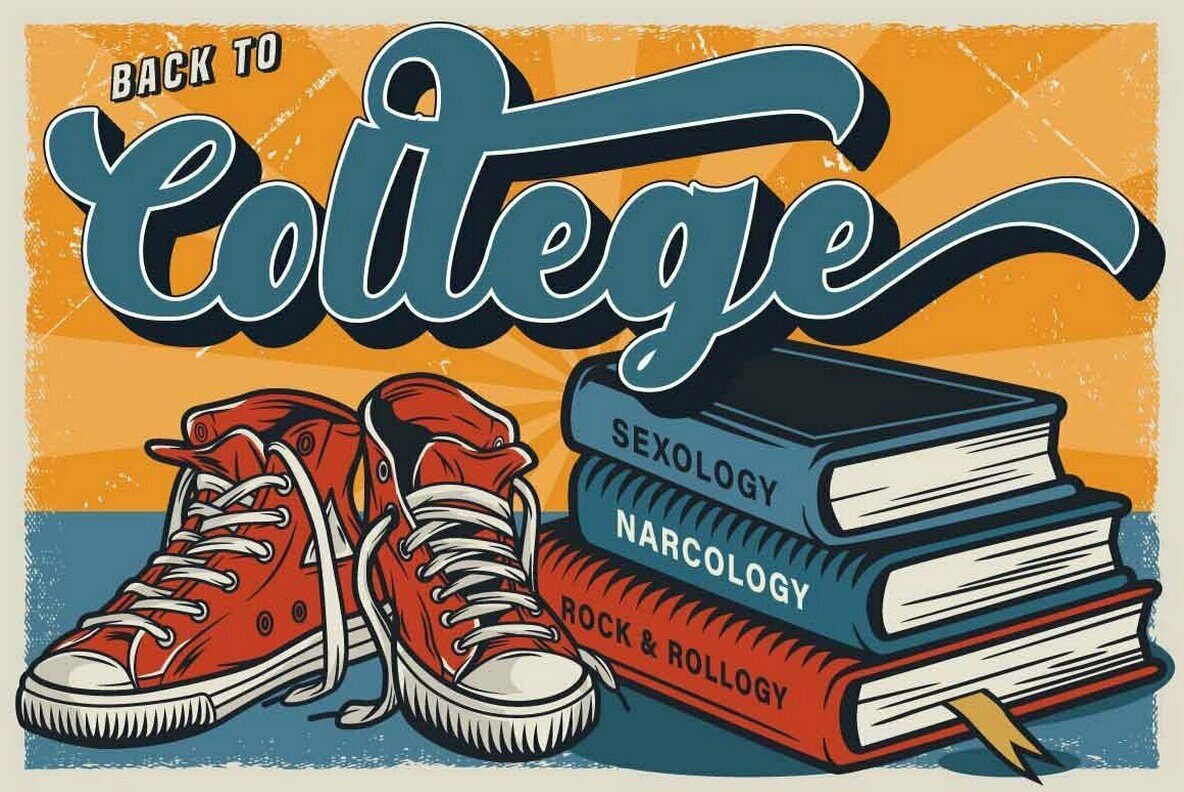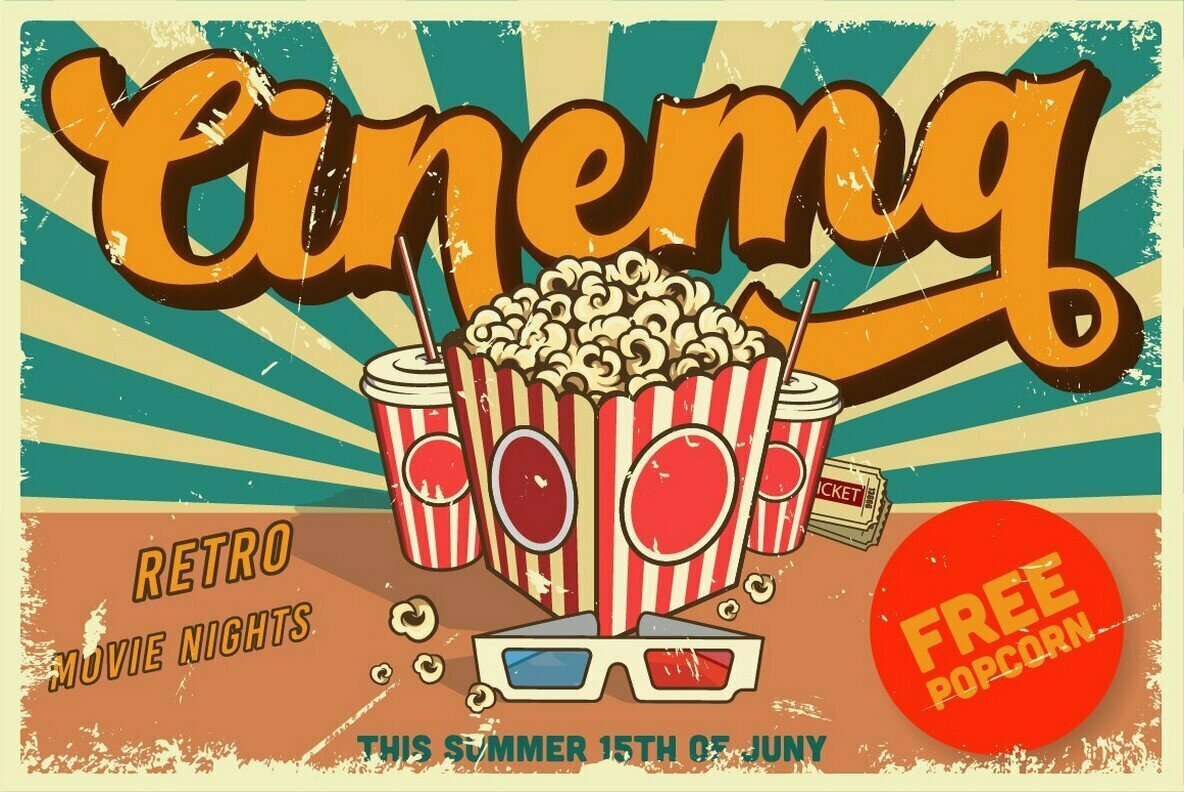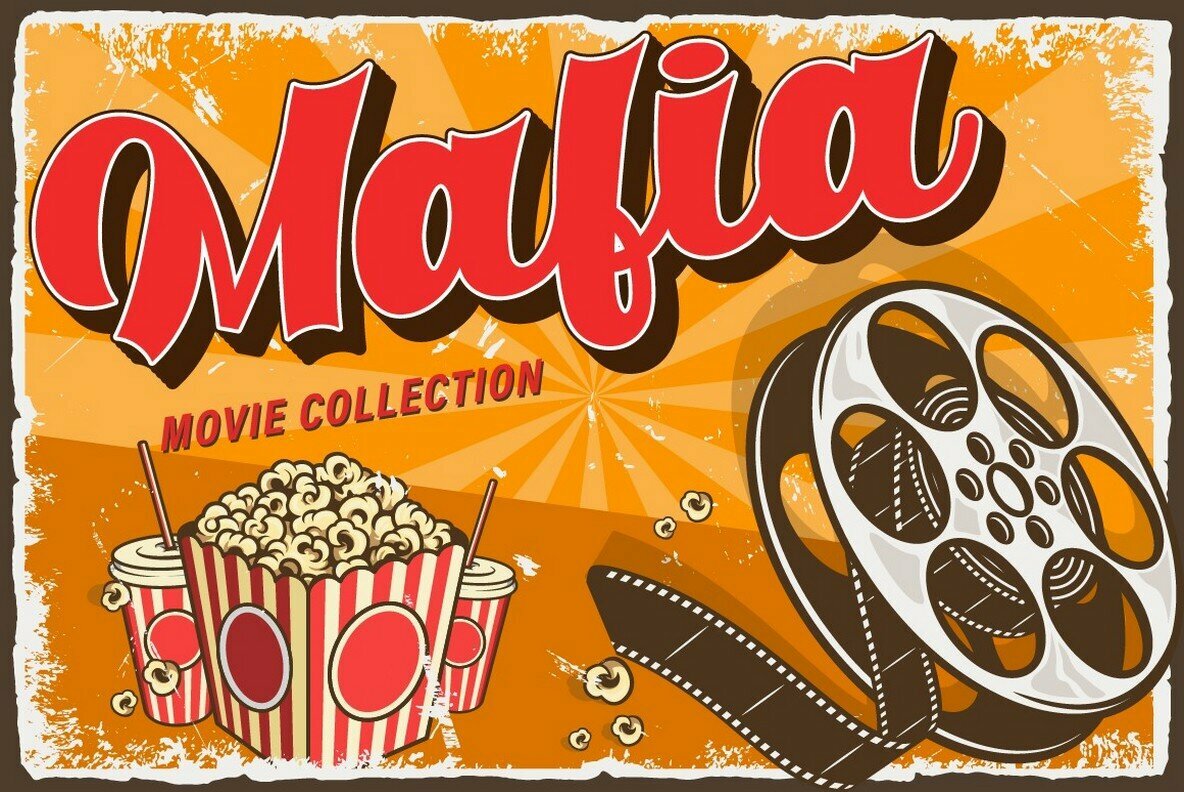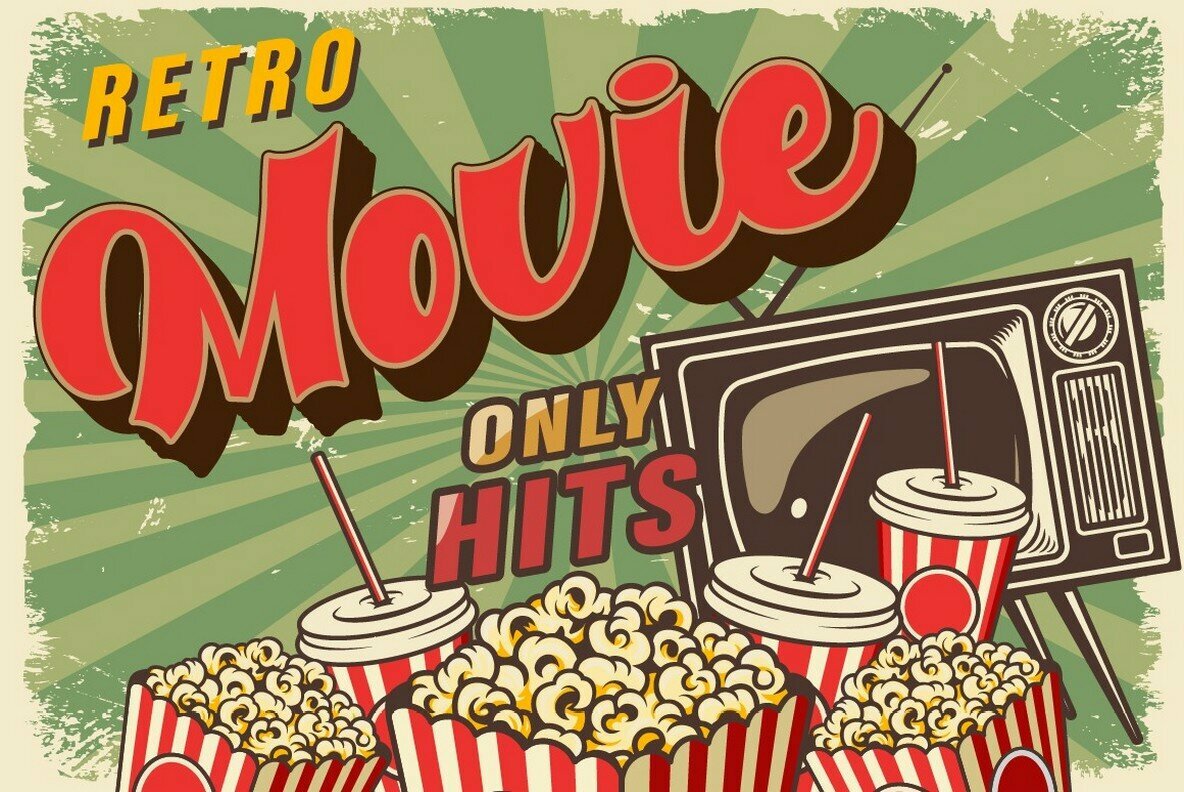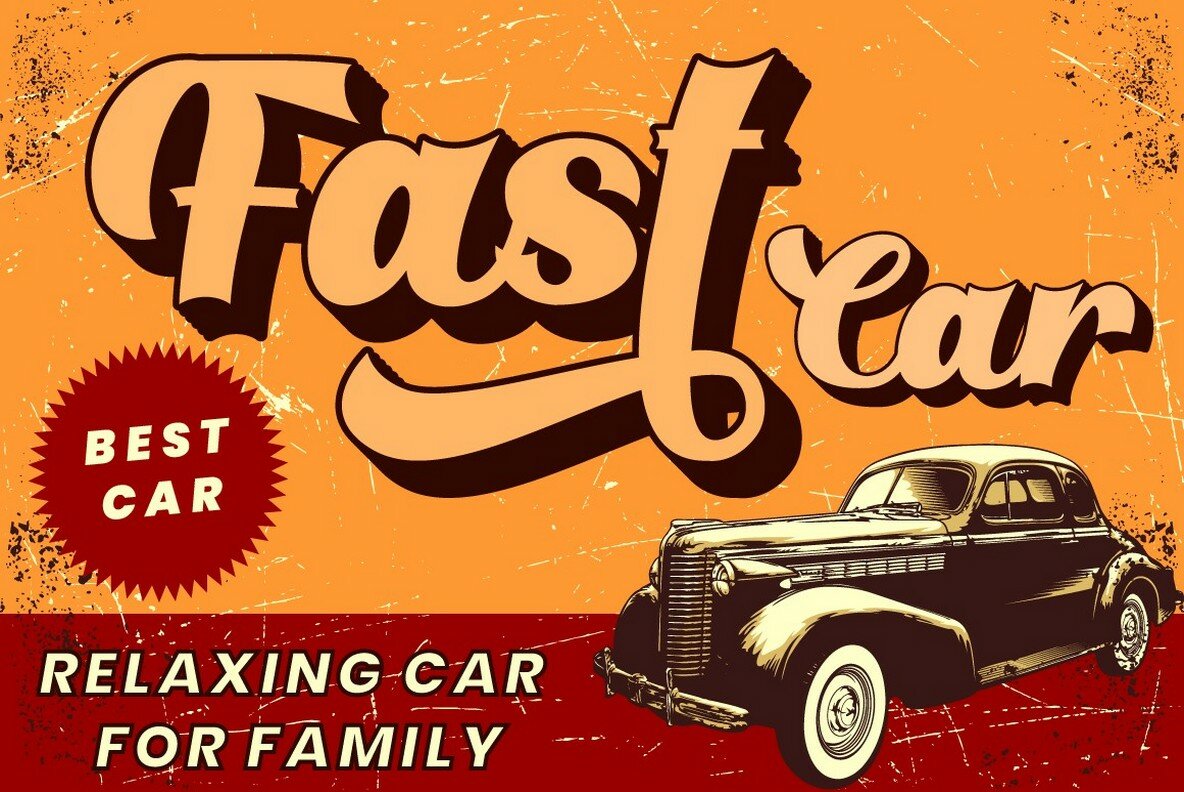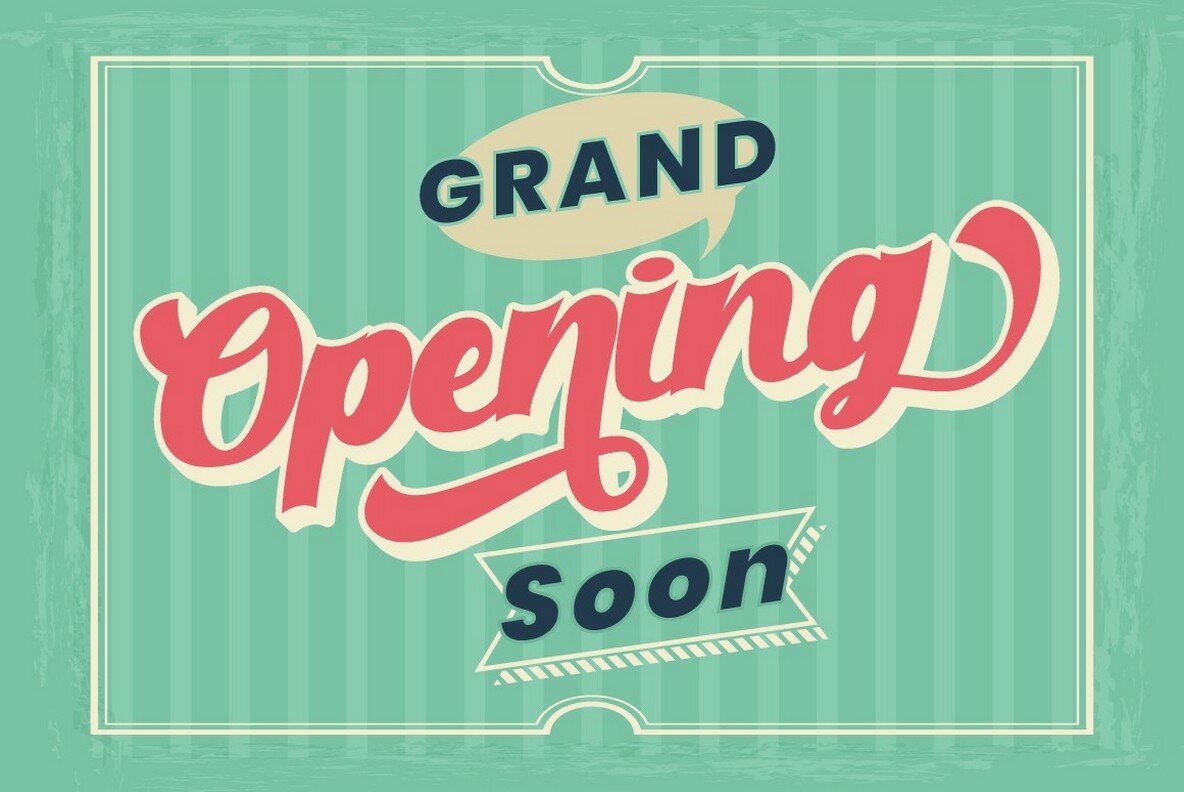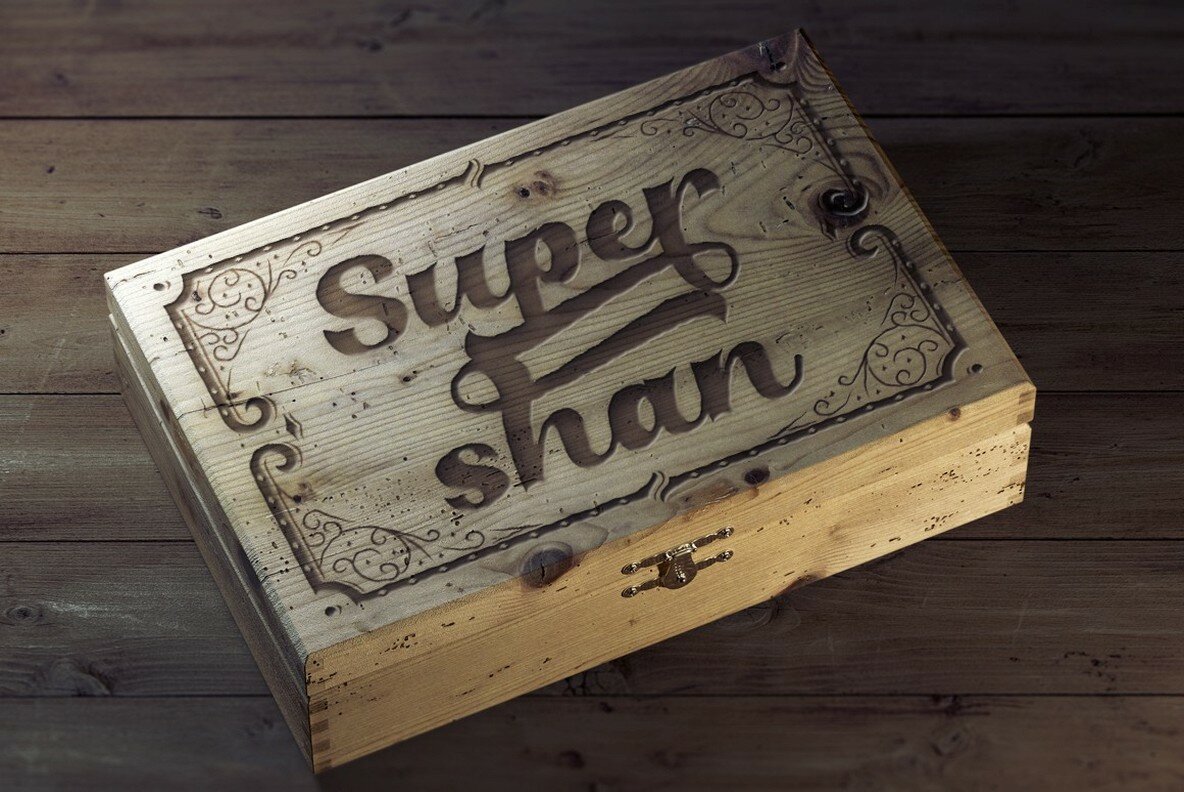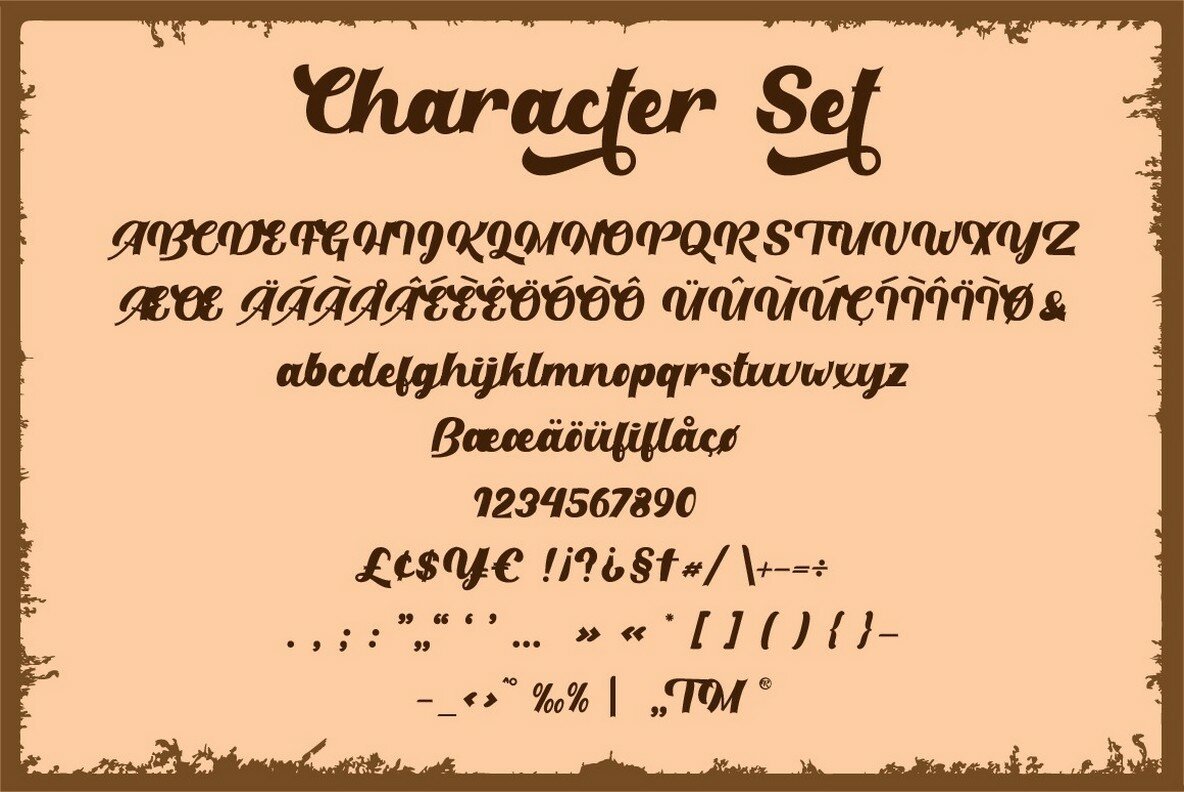
Retro Party Font
Retro Party
Retro Party, crafted by Putra Novembria Candra Kusuma, elegantly combines classic and modern retro styles to form a captivating display script font. This versatile typeface is designed to infuse character into vintage and retro projects, making it an excellent choice for badges, logos, t-shirts, posters, branding, packaging, signage, book covers, and more. This font is equipped with OpenType features and offers a vast array of alternates, enhancing your ability to create striking lettering. With support for multiple languages, Retro Party stands as a versatile tool for global design endeavors. For full access to its alternate glyphs, ensure you're using software that supports OpenType features such as Adobe Illustrator CS, Adobe Photoshop CC, Adobe InDesign, or Corel Draw. Note that the extrude and shadow effects showcased in previews are for presentation only and are not included in the font package.Retro Party: A Display Font for Vintage and Modern Designs